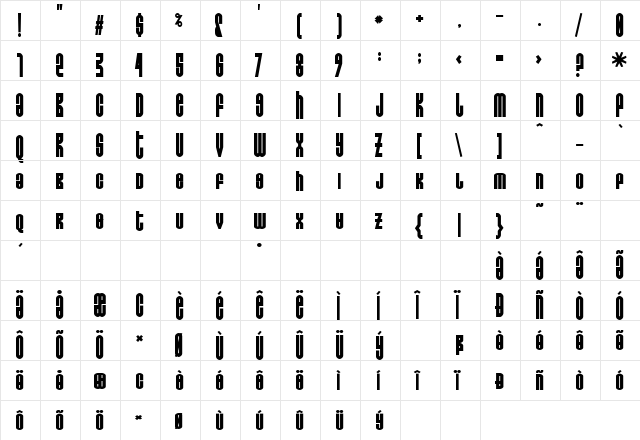
Do not eat this Fat Regular
Design Context for Do not eat this Fat Typeface
Do not eat this Fat is a composed and adaptable typeface that performs quietly and consistently across a wide range of design contexts.